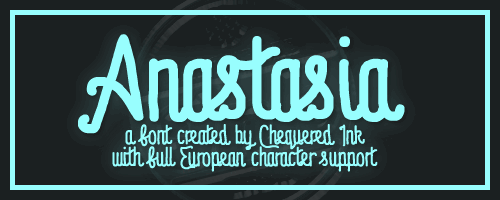
Free Anastasia Font
Introducing you to the absolutely beautiful free anastasia font. Download this free typeface from the original source of Font Space. This is absolutely fancy font so you can easily make world-class designs.